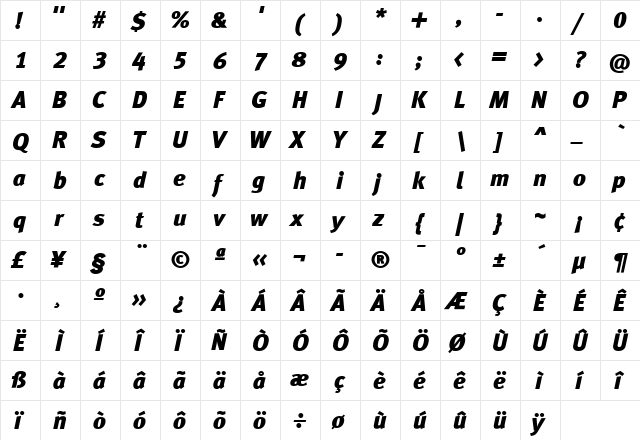
MetaBlackTurkLF Italic
Design Context for MetaBlackTurkLF Typeface
MetaBlackTurkLF is a composed and adaptable typeface that performs quietly and consistently across a wide range of design contexts. The slanted form adds forward momentum and visual energy.